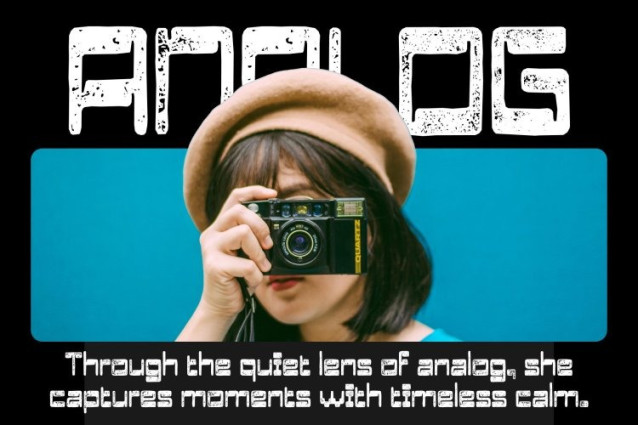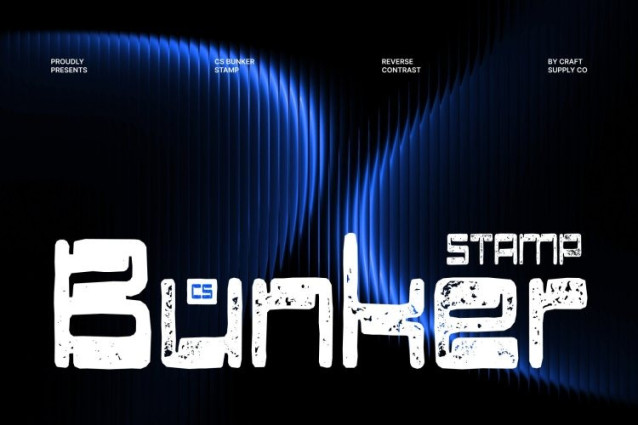
CS Bunker Stamp Font
CS Bunker Stamp Font is a display font that features a striking reverse contrast style, where the horizontal strokes are noticeably thicker than the vertical ones. This uncommon structure creates a bold and unconventional visual rhythm that immediately stands out. Enhanced with a stamped texture, the font gains an extra layer of depth and character, emphasizing its distinctive and expressive form.
Soft, Rounded Letterforms
While its reverse contrast gives the font a strong structural identity, this font balances this with smooth, rounded edges that soften the overall look. The combination of bold contrast and gentle curves results in a warm, friendly, and approachable personality, making the font visually dynamic without feeling harsh.
’90s Retro Vibe with a Modern Twist
Inspired by the playful spirit of 1990s digital culture, this font channels retro-futuristic aesthetics reminiscent of early computer graphics and experimental typography. The added stamp texture enhances its nostalgic feel, giving the typeface a slightly vintage, tactile quality while still appearing fresh and contemporary.
Versatile for Bold and Expressive Designs
Perfect for nostalgic posters, album artwork, vibrant branding, and creative campaigns, this font brings energy and personality to every design. Its reverse contrast structure, rounded shapes, and textured finish make it an excellent choice for projects that aim to capture retro charm while maintaining a modern creative edge.